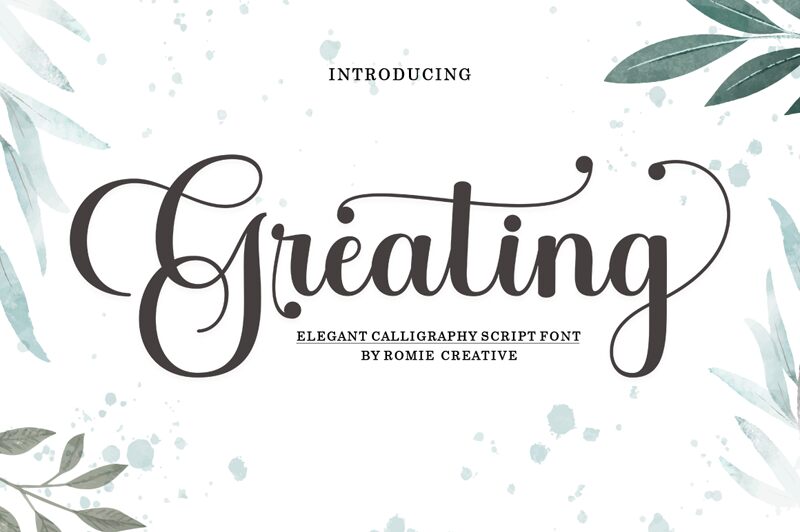
Greating, the semi-light calligraphy font by Romi Rahmadi, is the perfect balance of elegance and readability. Its graceful curves and flowing lines make it ideal for wedding invitations, greeting cards, and other formal projects. However, its semi-light weight also makes it suitable for more casual designs like logos and branding materials. Whether you're looking to add a touch of sophistication to your project or just want a beautiful script font that's easy to read, Greating is sure to impress. Try it out for yourself and see why this stunning typeface is quickly becoming a favorite among designers everywhere.
Greating
Romi Rahmadi